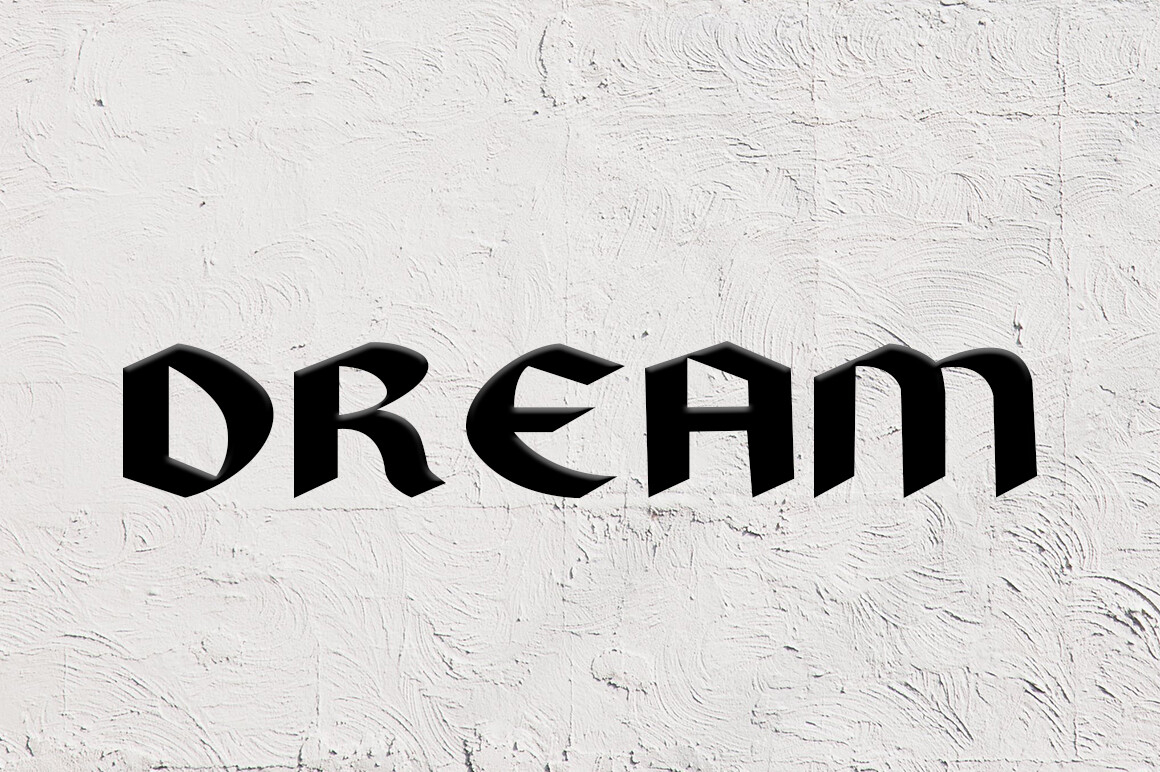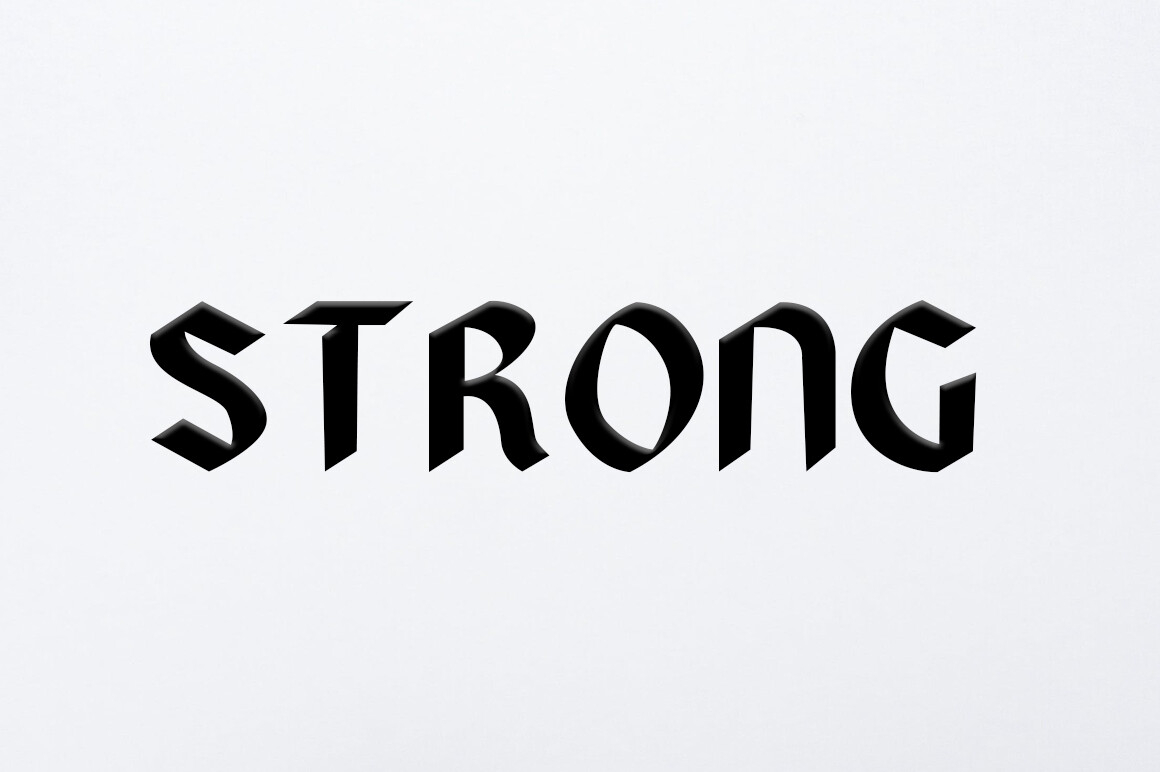
History Font
About History Font
HISTORY is a new and beautiful blackletter font perfect for branding, logos, greeting cards, stationery design, invitations, T-shirts, apparel, packaging, posters, and so much more.